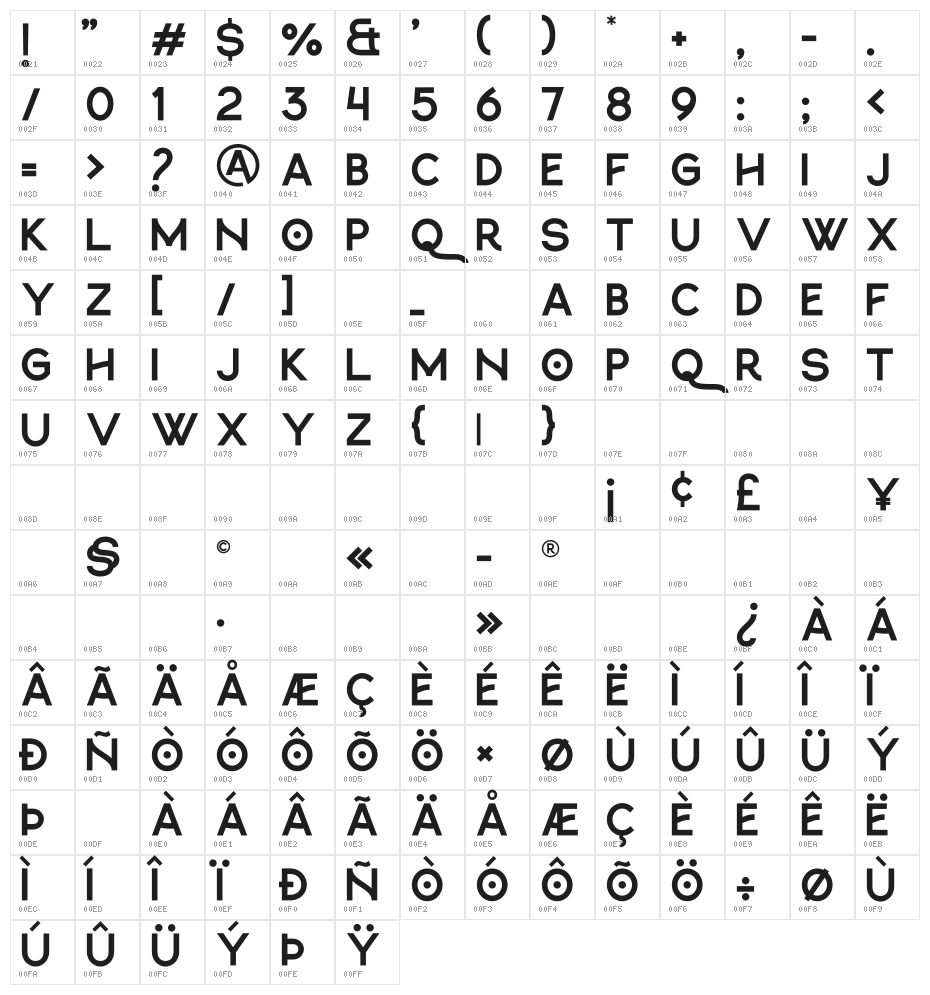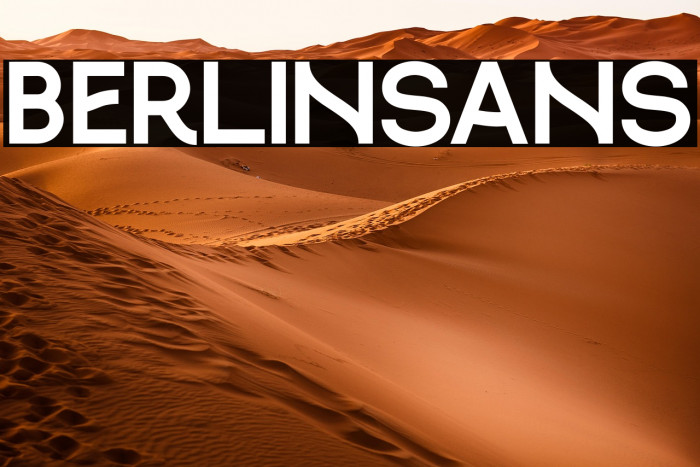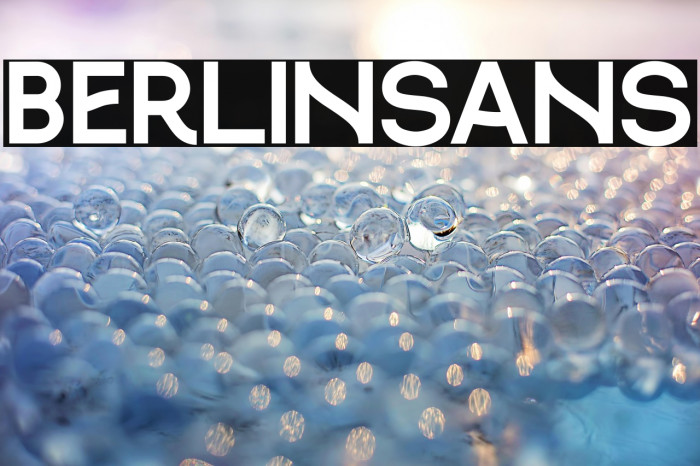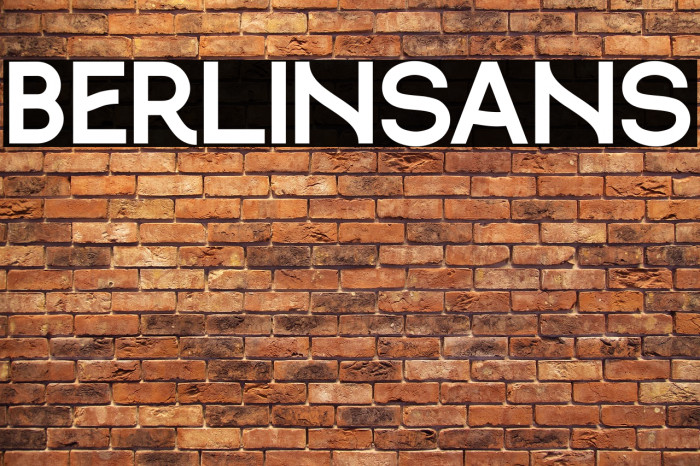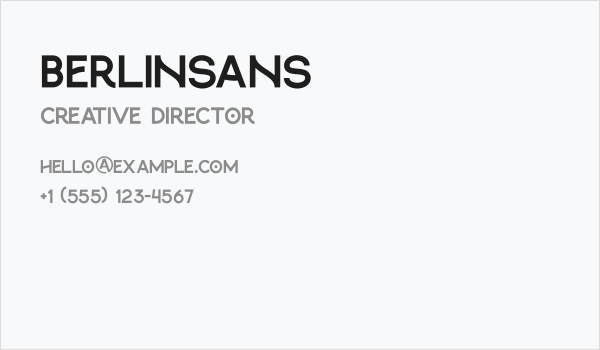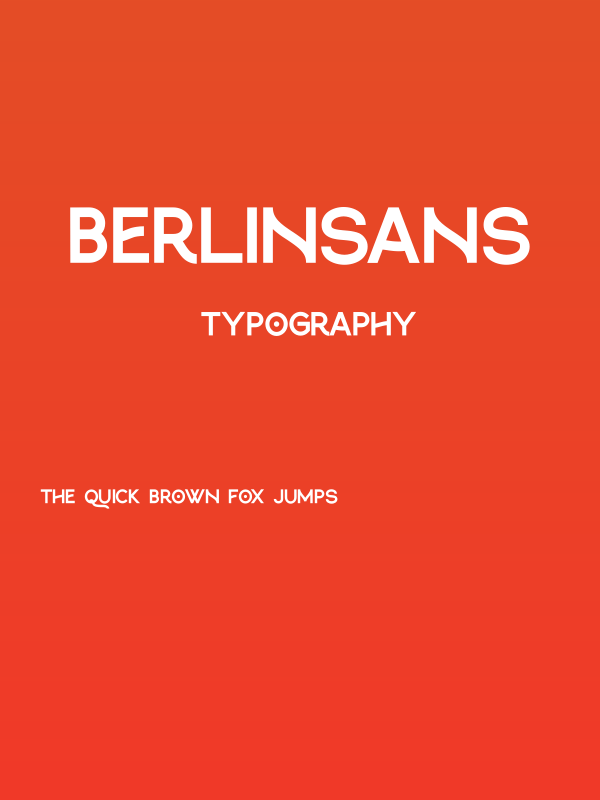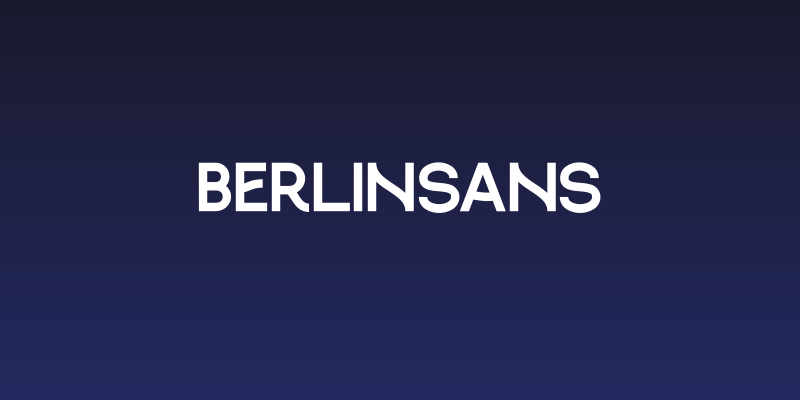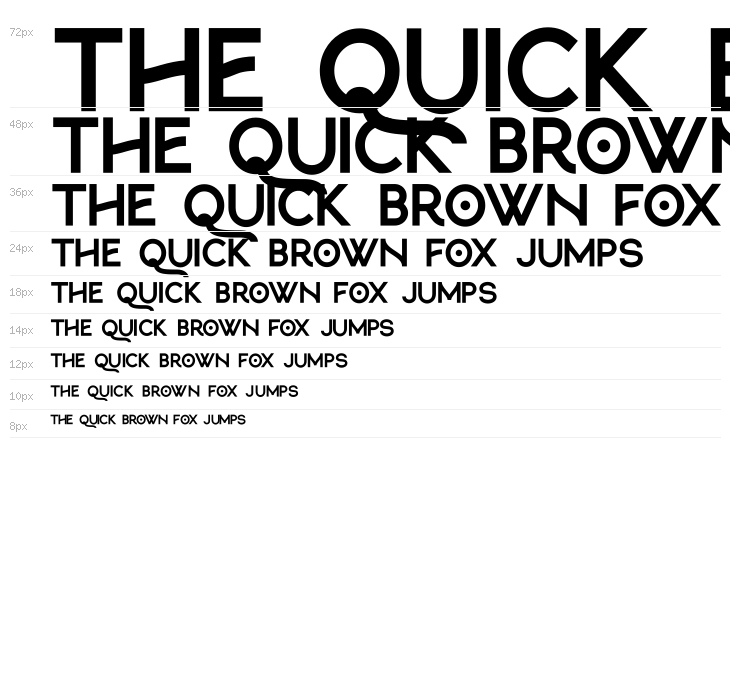
berlinsans Font
berlinsans Description
This font features a bold, geometric sans-serif style with clean lines and a modern aesthetic. The characters are well-balanced, with consistent stroke widths that provide a uniform appearance. The uppercase letters are strong and assertive, while the lowercase letters maintain a harmonious flow. The numerals are clear and easily distinguishable, making them suitable for various applications. Special characters are designed with the same attention to detail, ensuring they integrate seamlessly with the rest of the font. The overall design is versatile, making it ideal for both digital and print media.